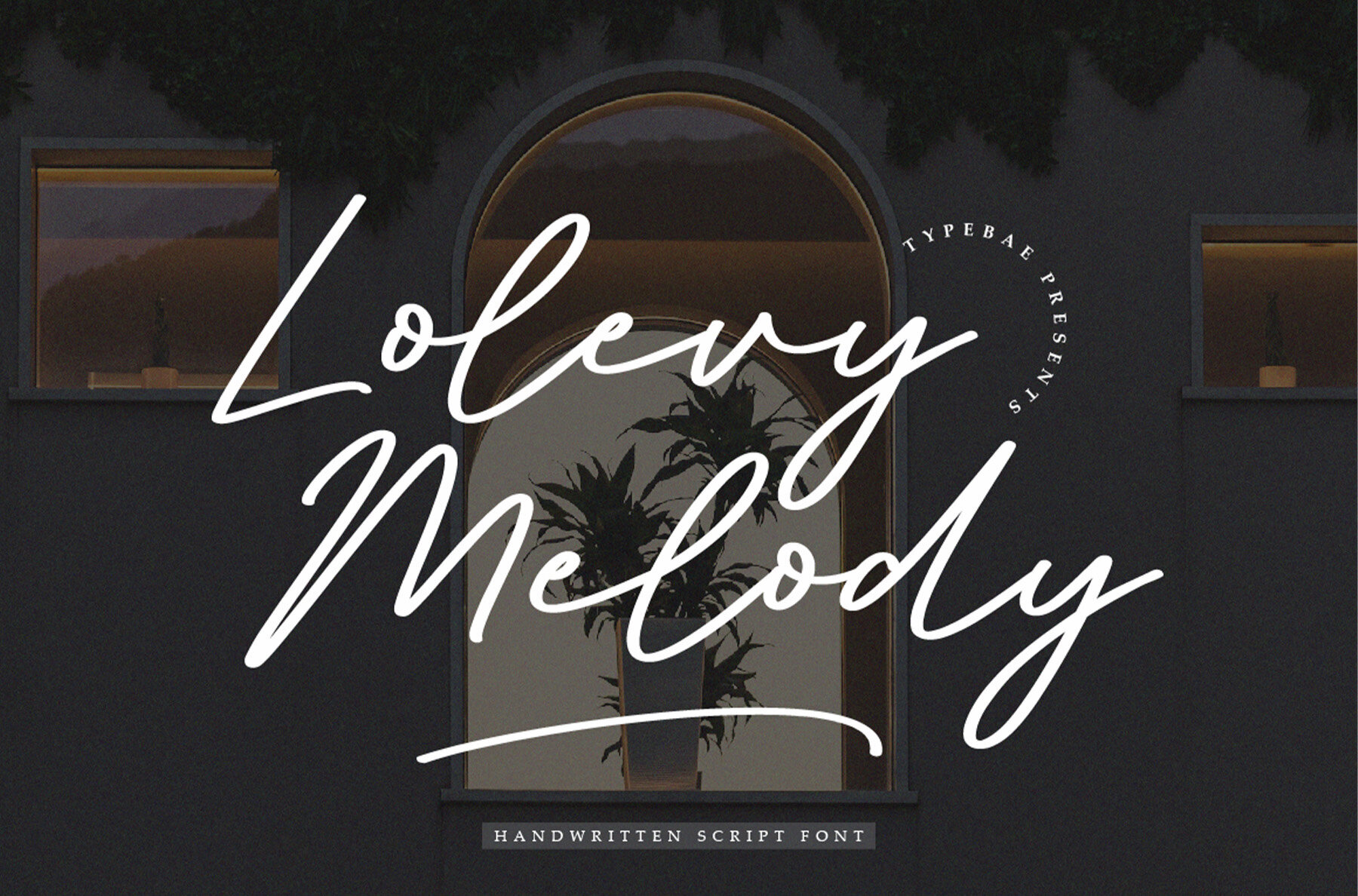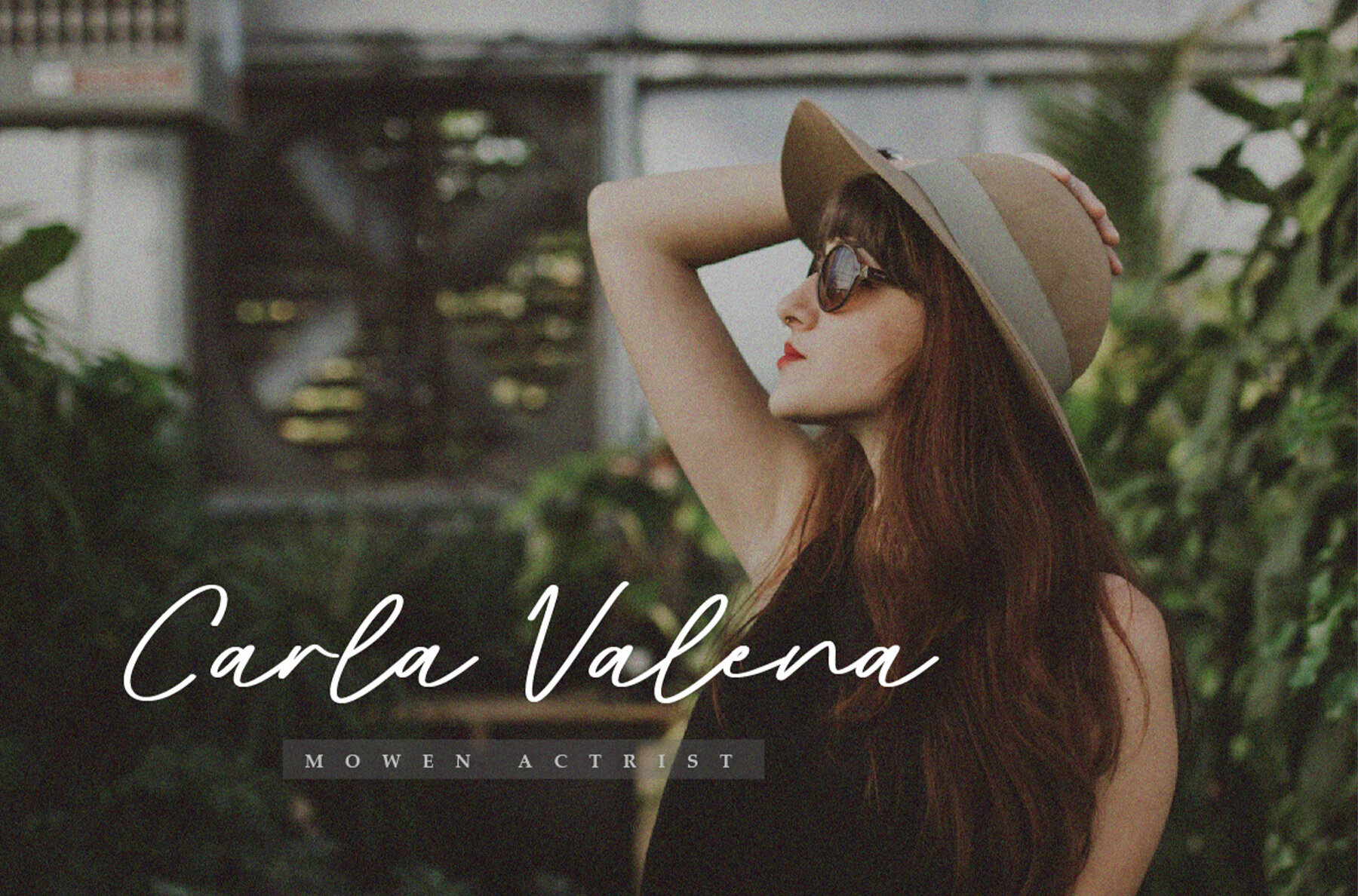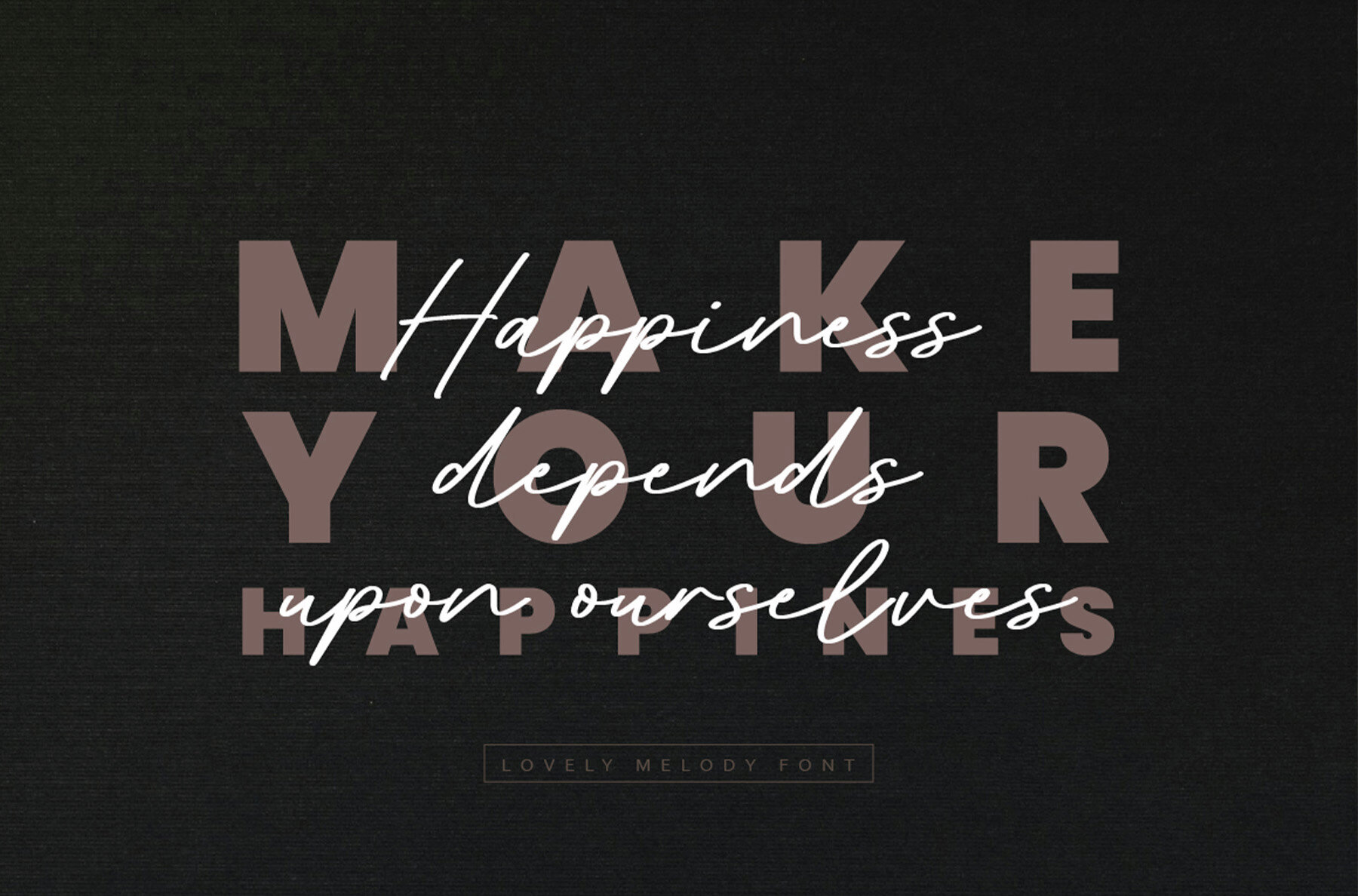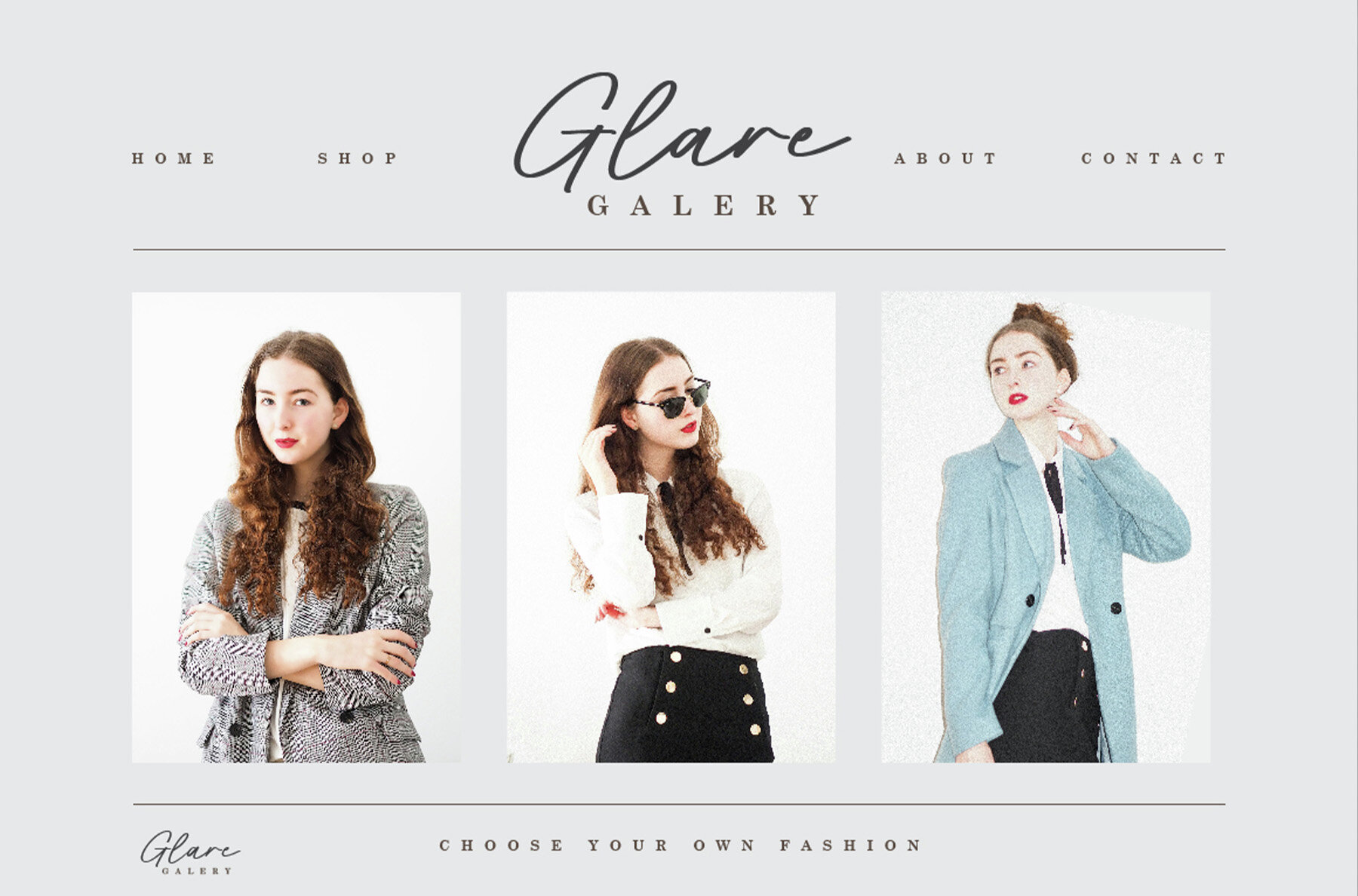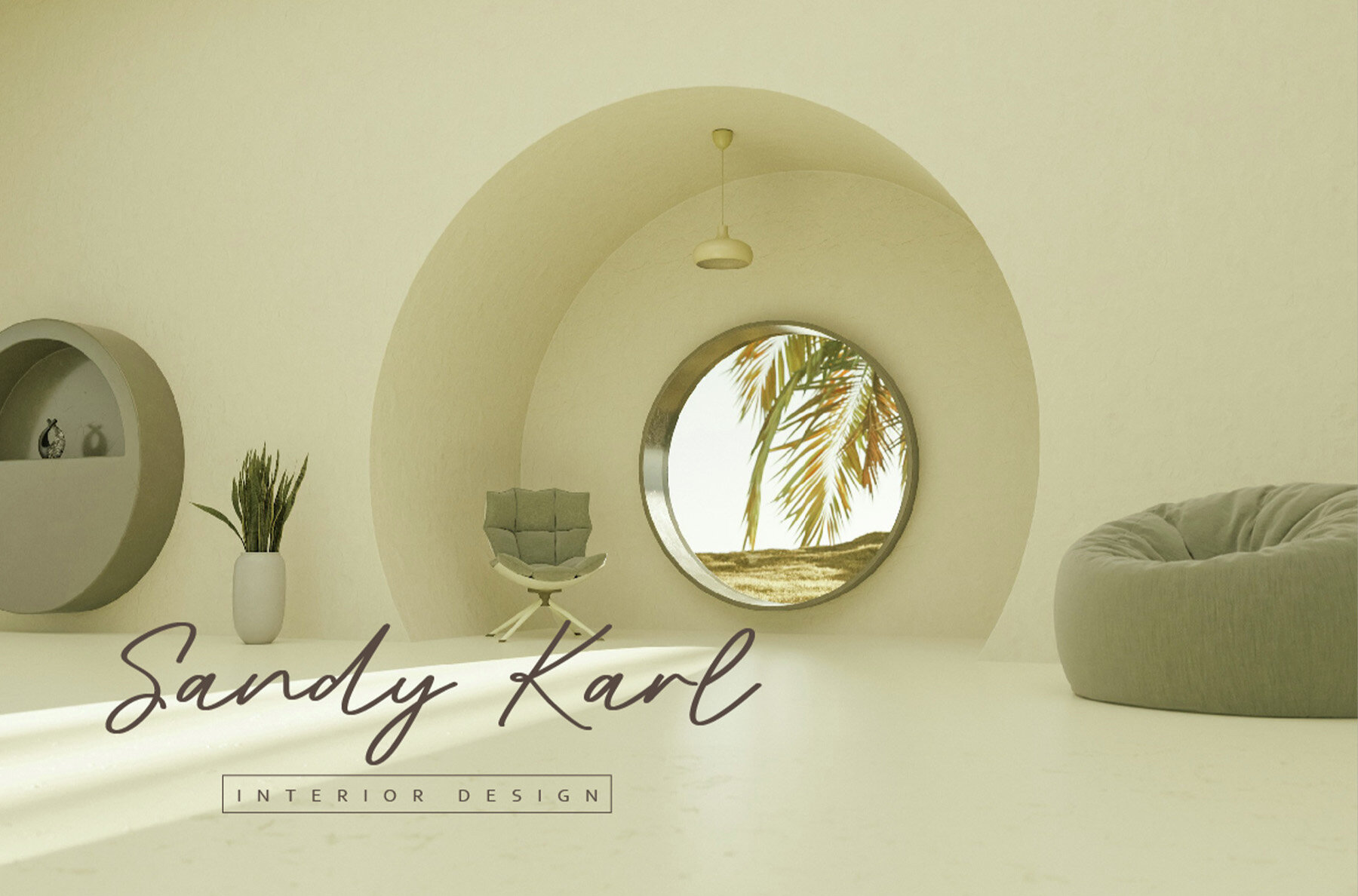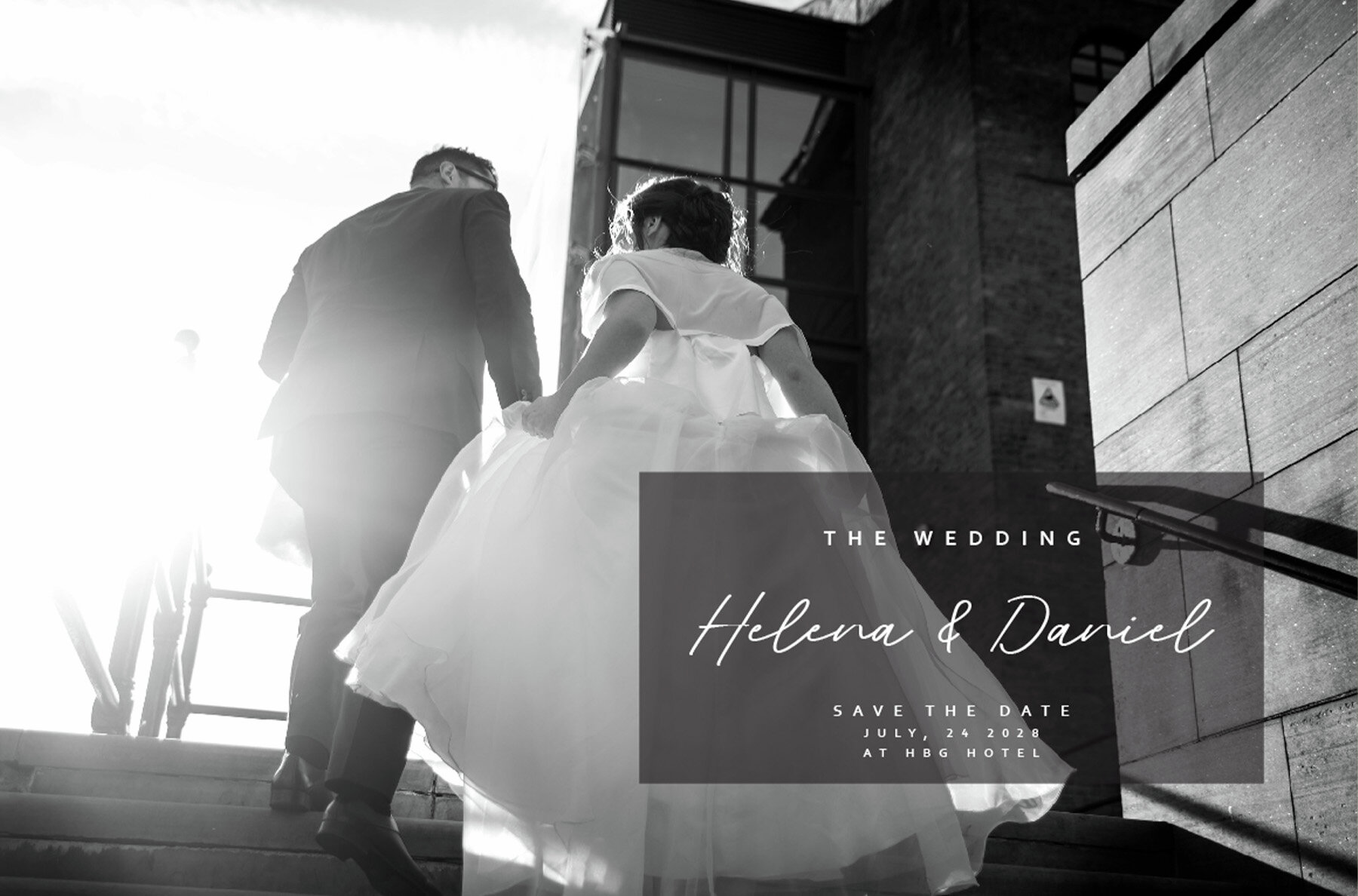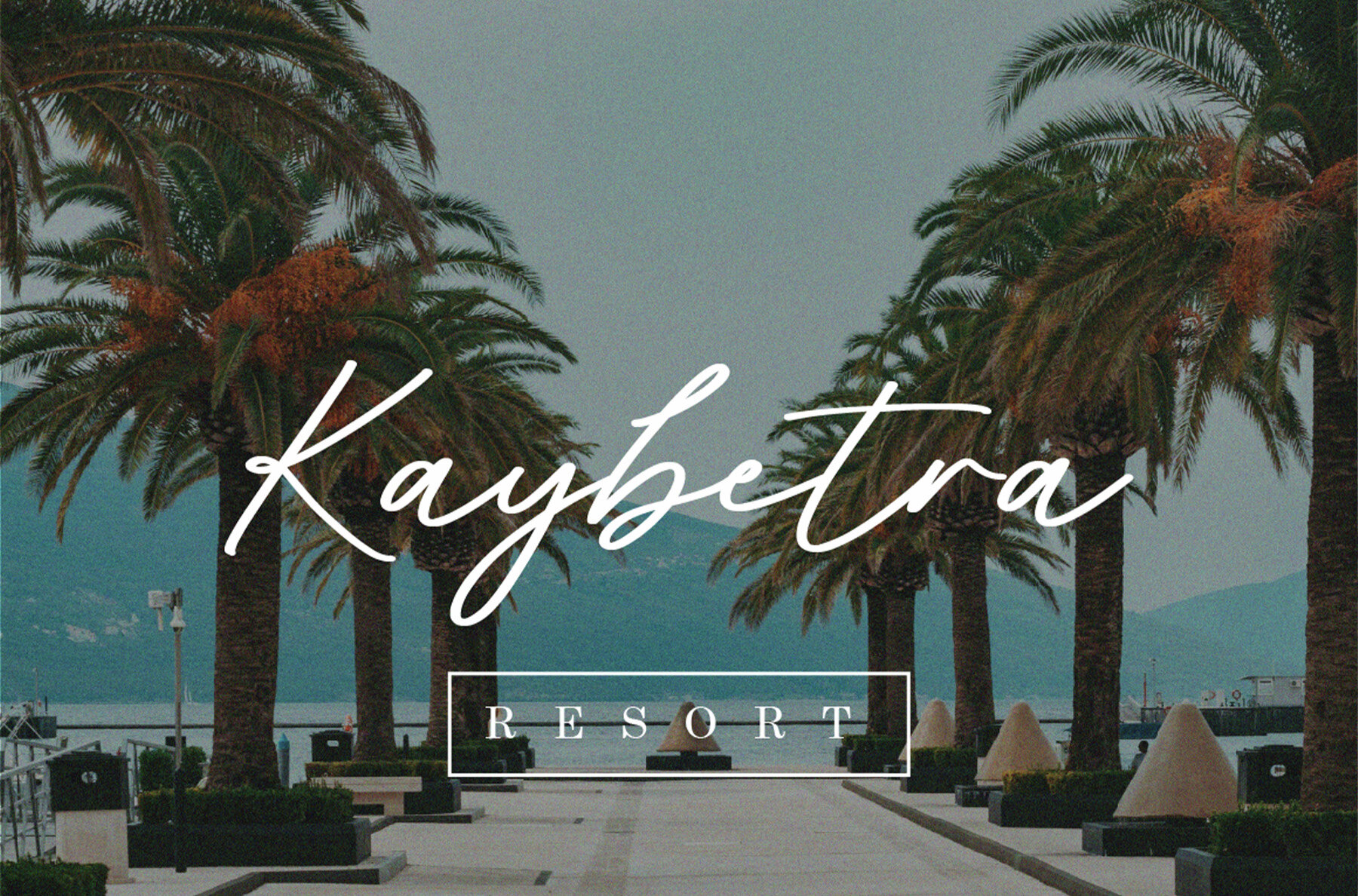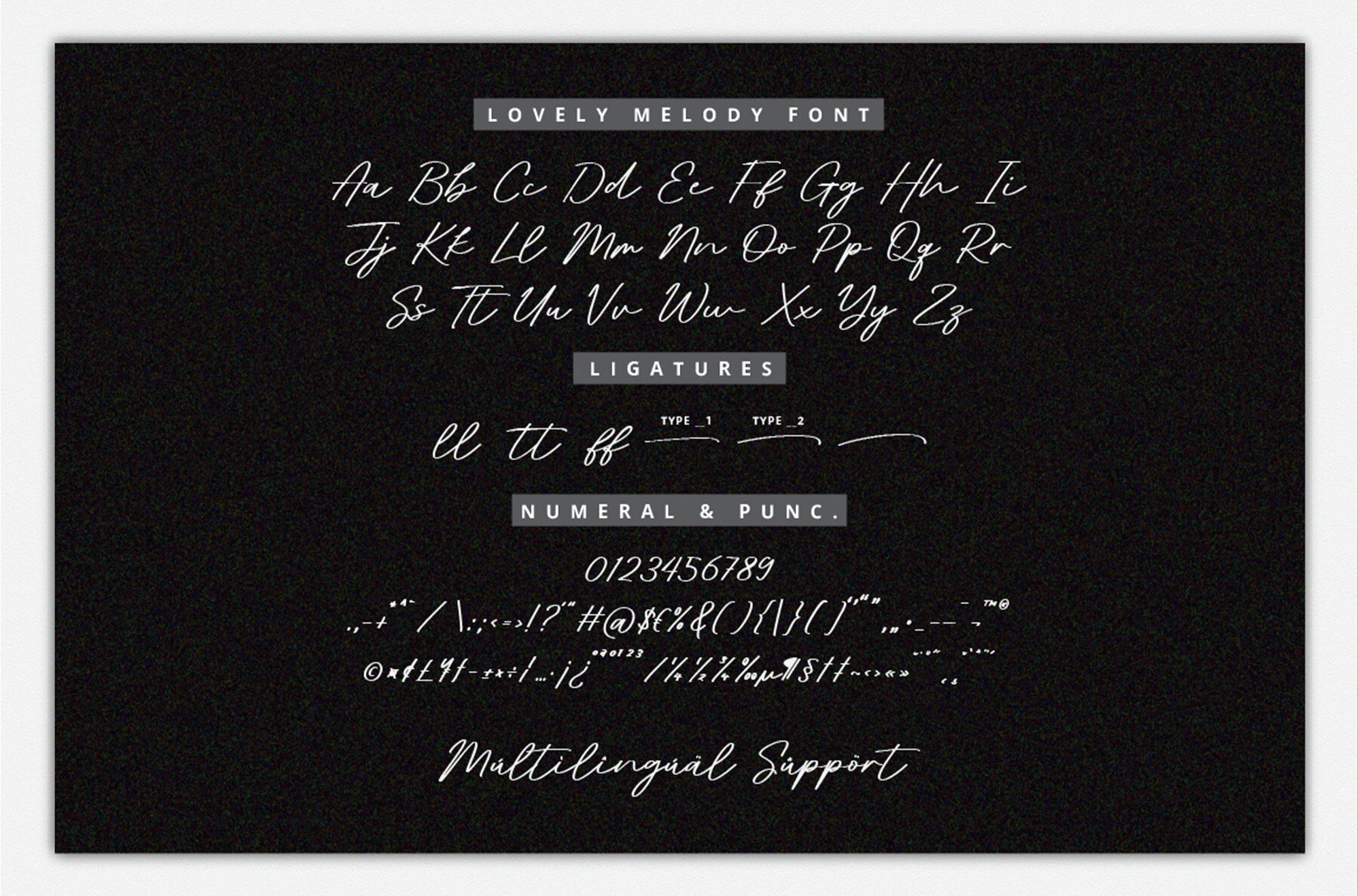
Lovely Melody Font
Lovely Melody
Lovely Melody brings a refined handwritten script style to your design projects. Featuring bold strokes and a graceful brush design, this font adds both personality and sophistication to invitations, branding, and creative work. Its carefully balanced form ensures that every letter remains readable while delivering distinctive flair. Designed with versatility in mind, Lovely Melody offers strong visual appeal without overwhelming the layout. Each character carries subtle artistic details that make your text stand out—ideal for greeting cards, product packaging, or digital graphics where a modern personal touch is essential.Lovely Melody Handwritten Script Font